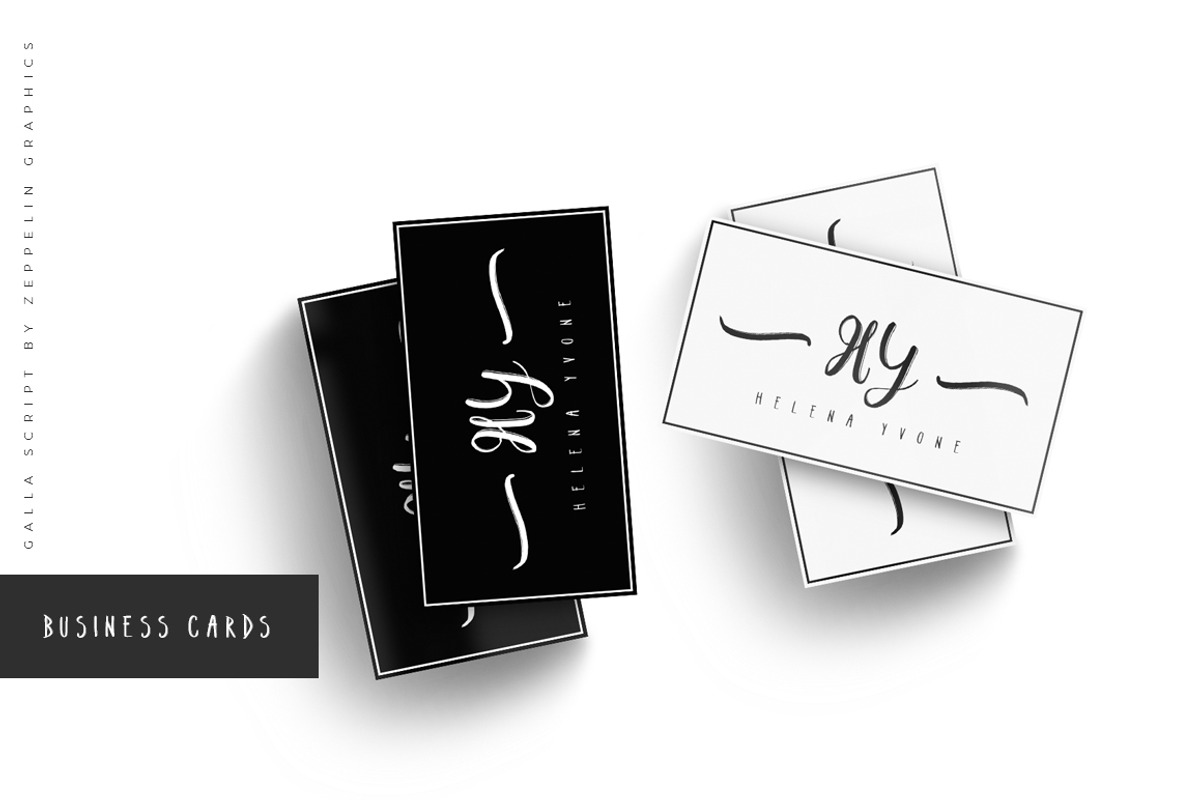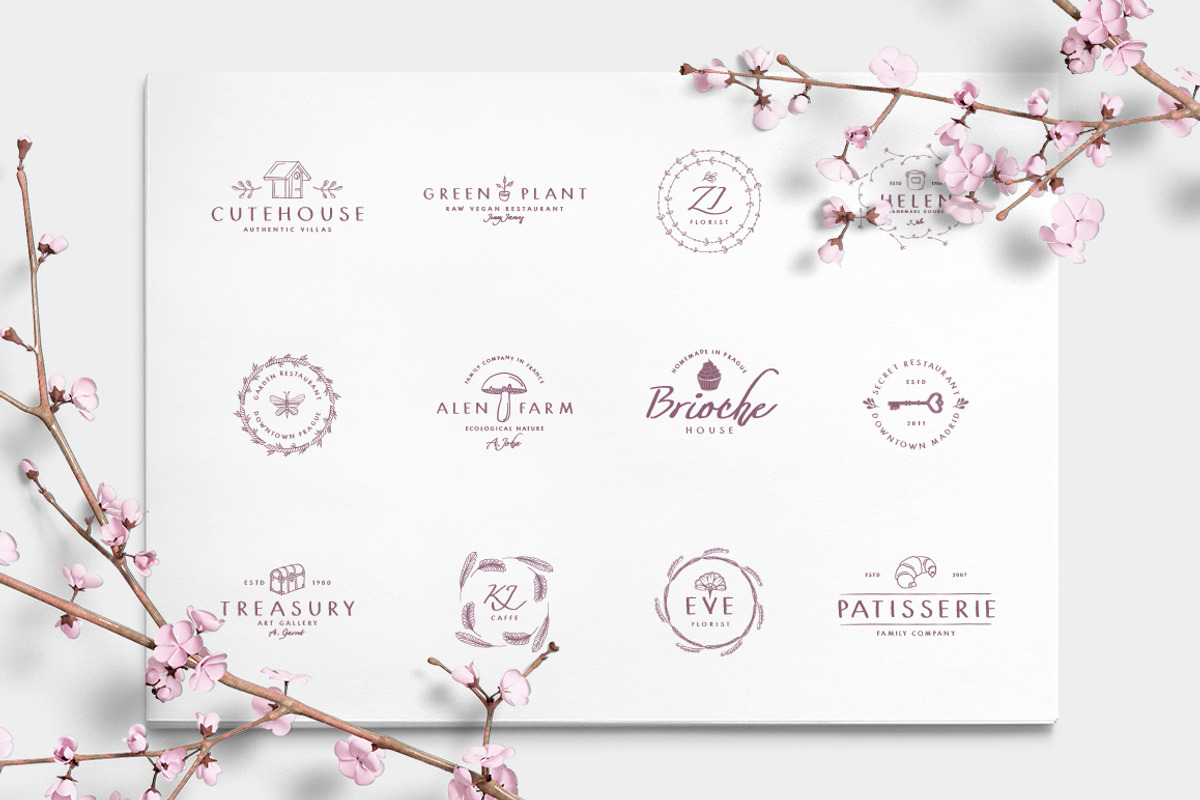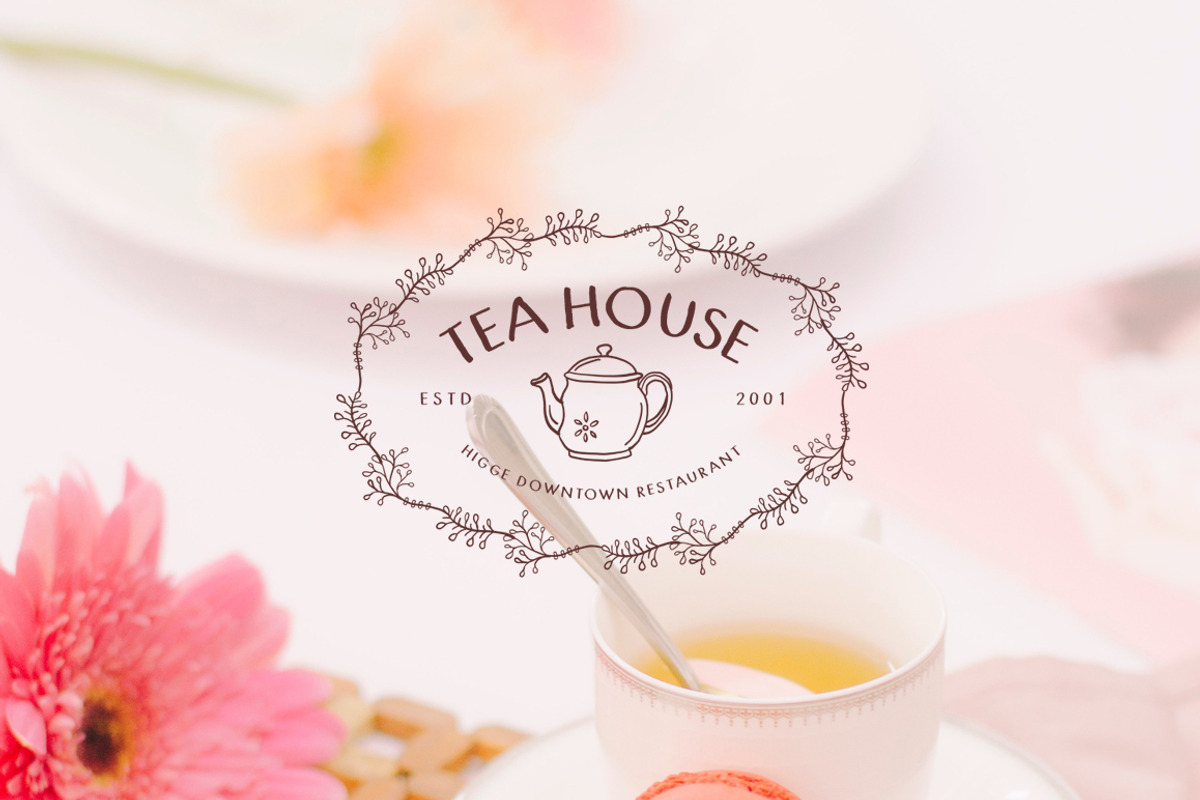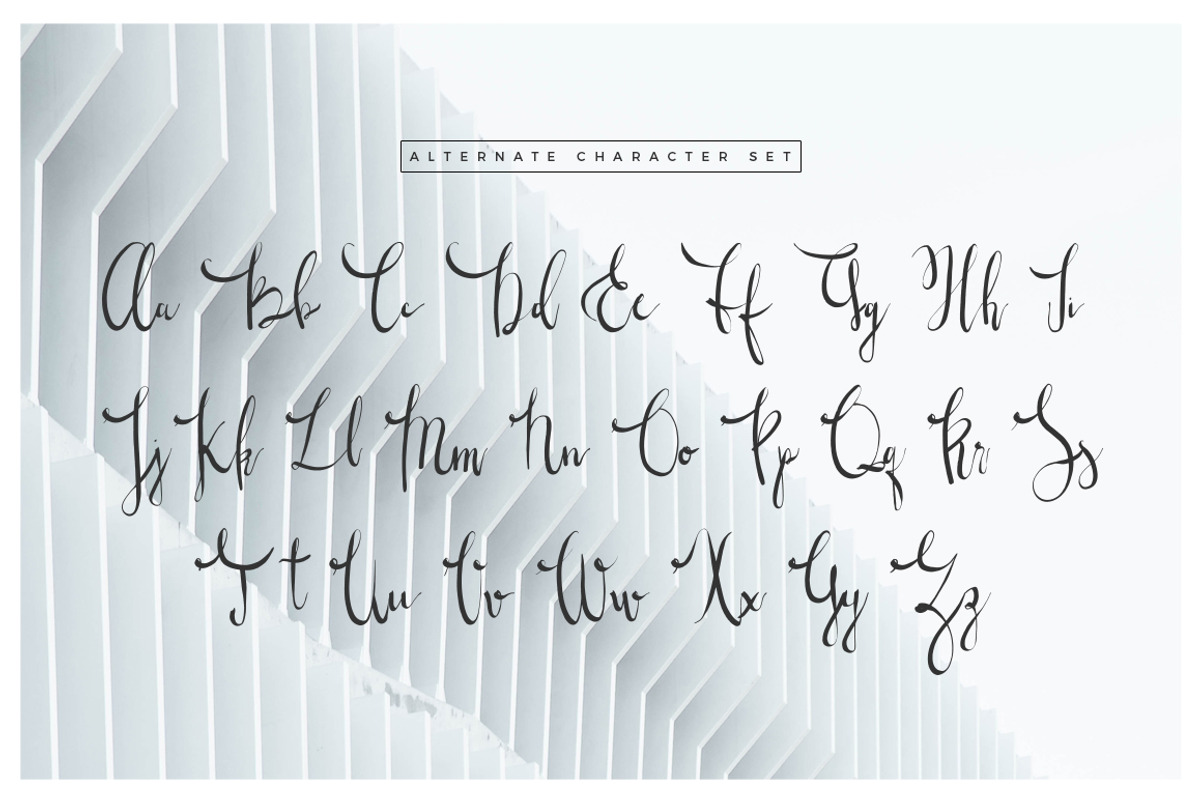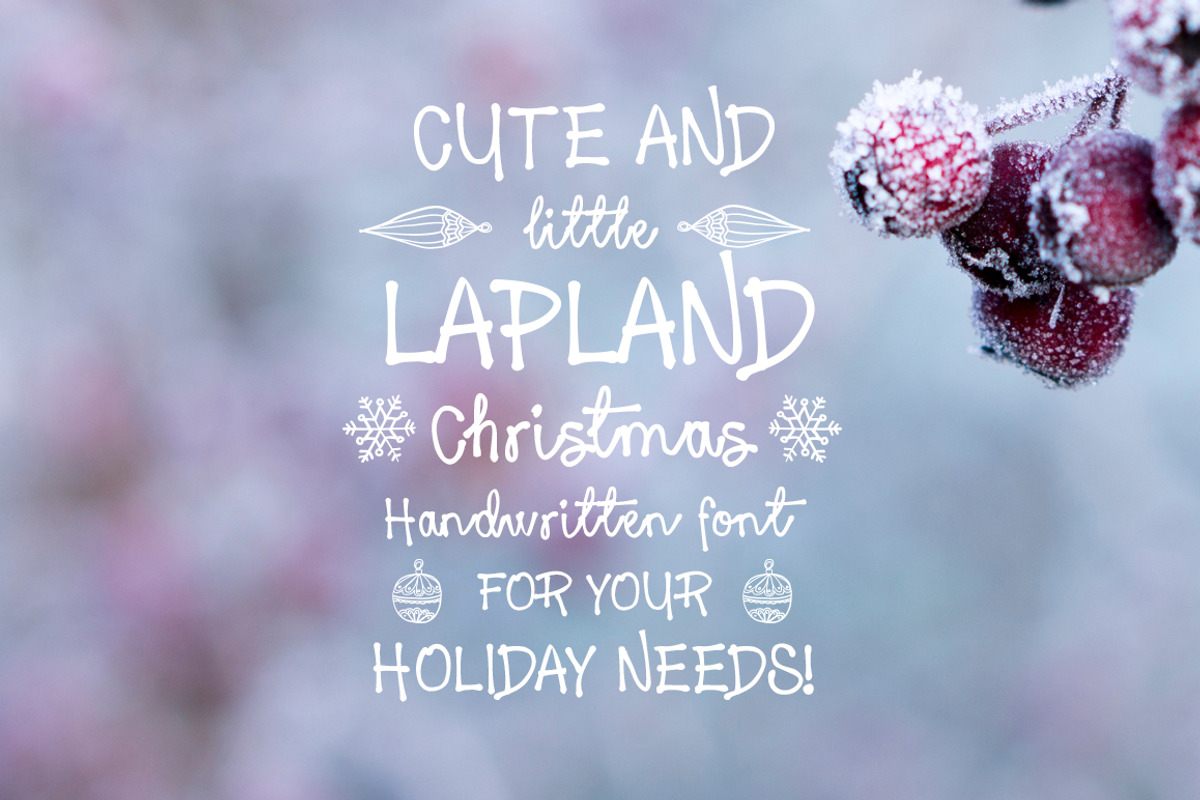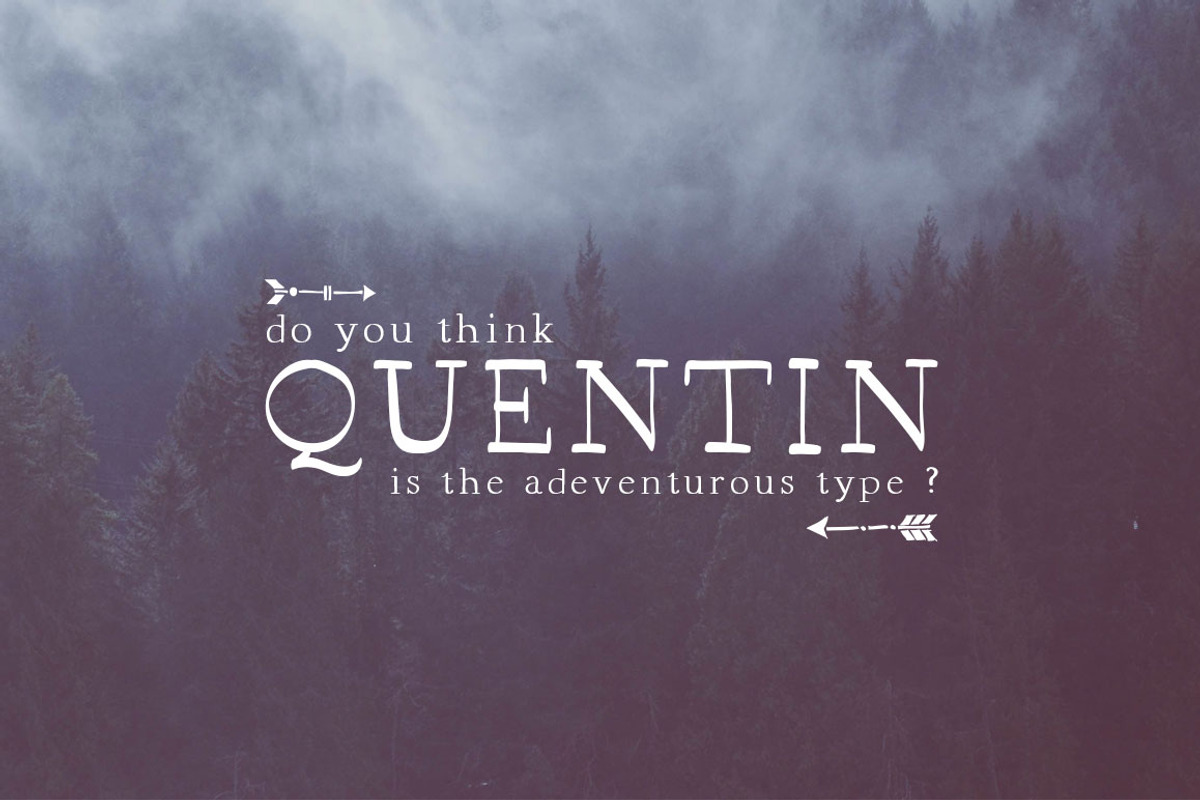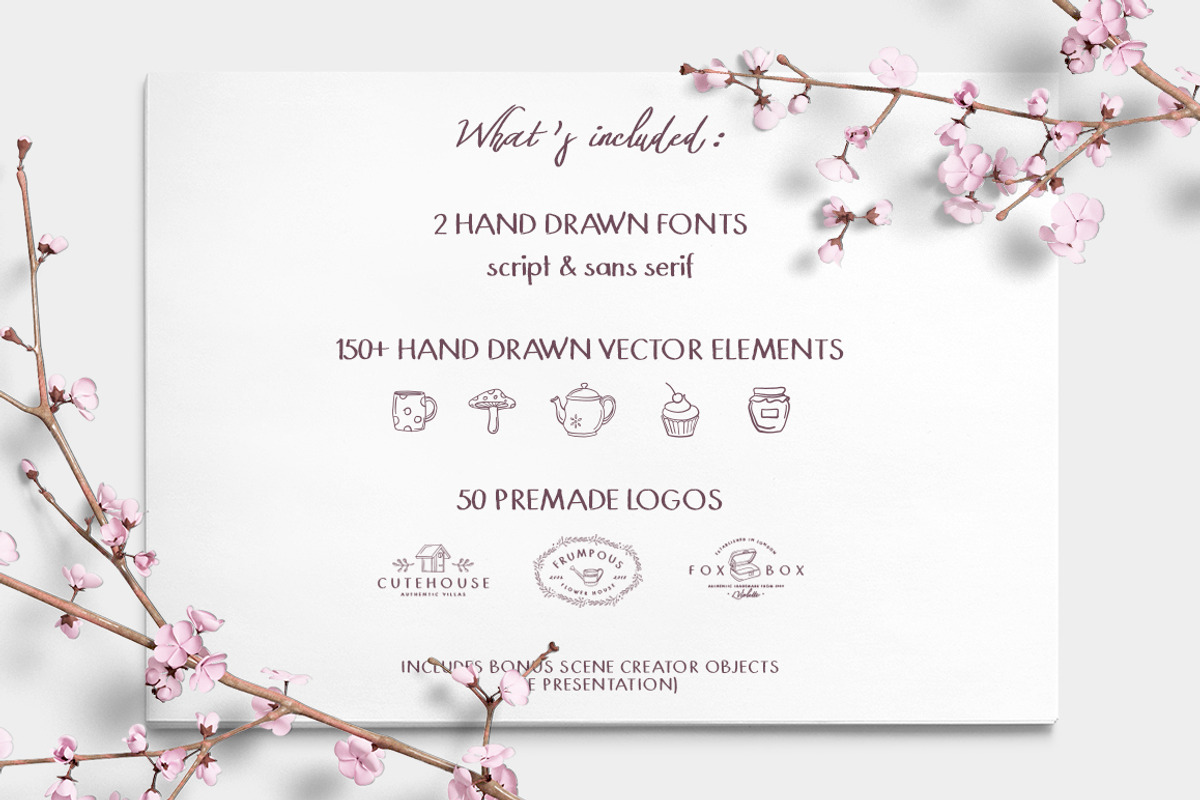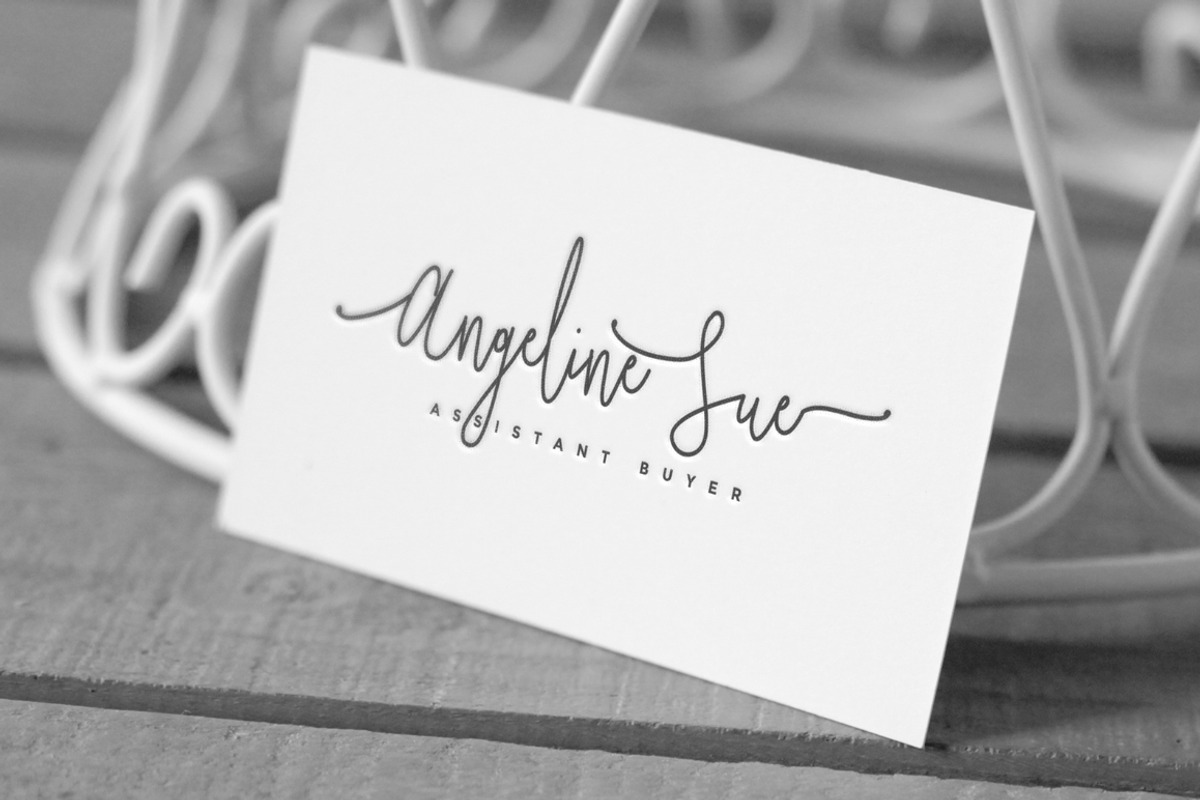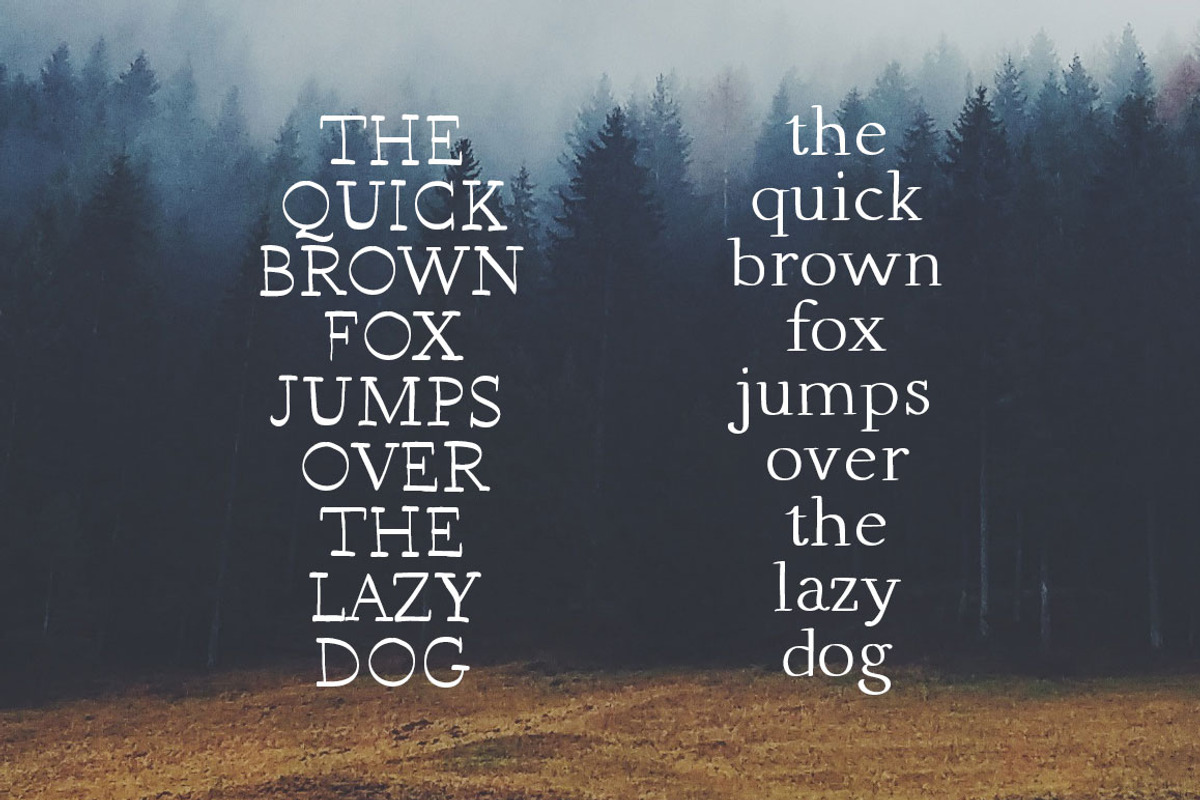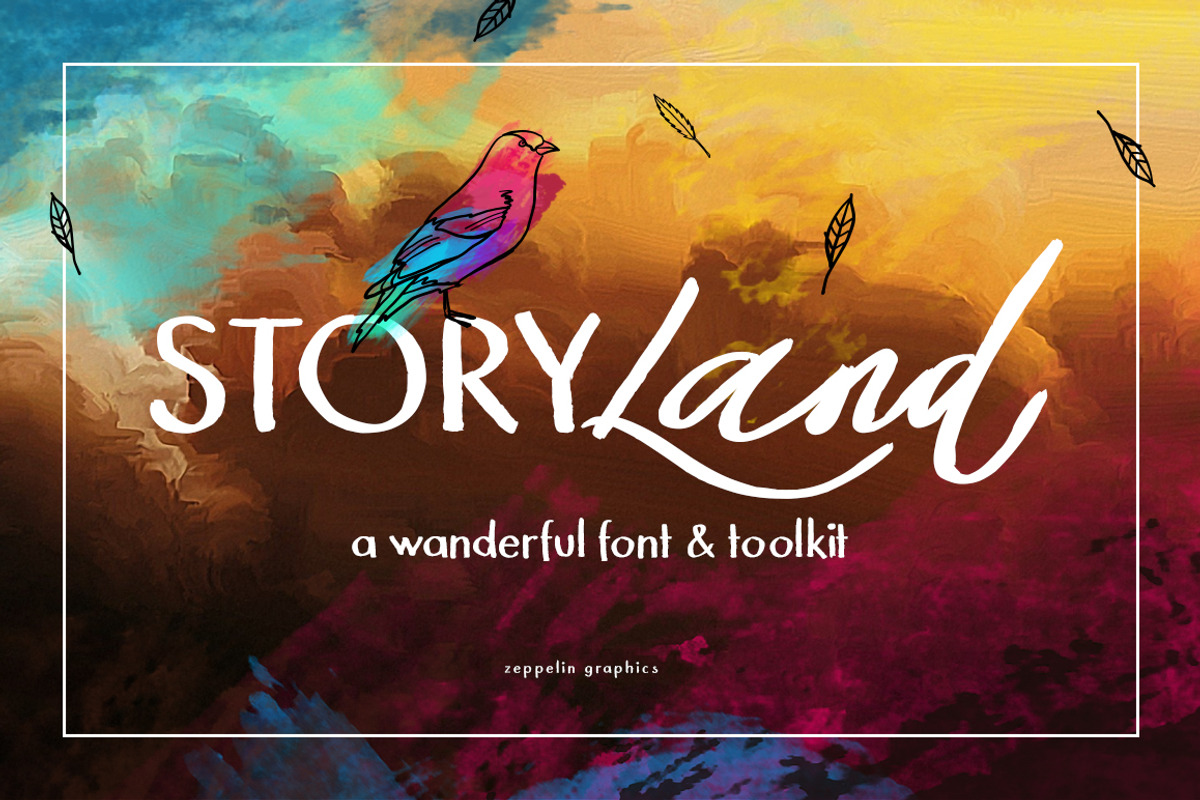
Wonderland Fonts Pack & Branding Kit
The Wonderland Font Pack & Branding Kit includes 8 products featuring fonts, logo templates and vector elements and swashes.
Products in this bundle:
- 13 Fonts in total
- Handwritten
- Ligatures & swashes (see each for for details)
- 13 Fonts
- 90 Logos
- 300 vector elements
- 50 Swashes (Galla Font Duo)
- Scene Creator Items (Storyland Font & Toolkit)
- Holiday Cards and patterns (Lapland Font & Toolkit)
None of the fonts have multilingual support at the moment.